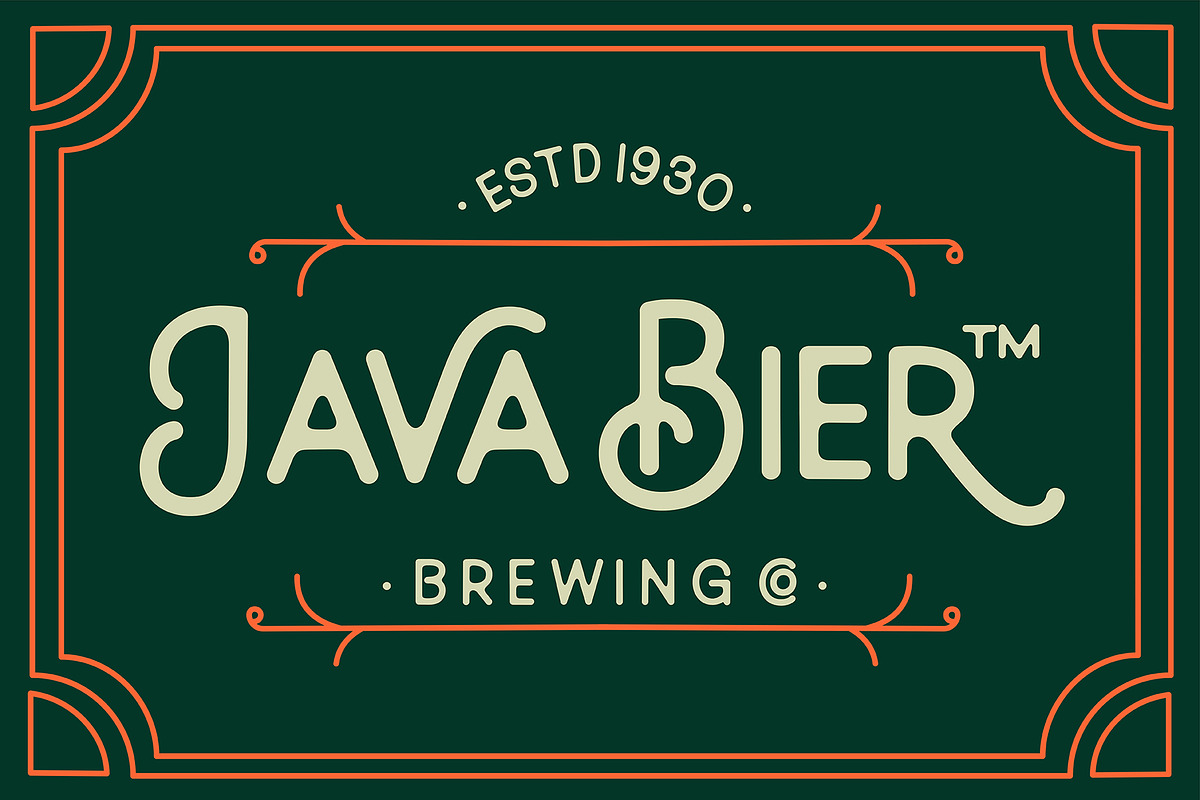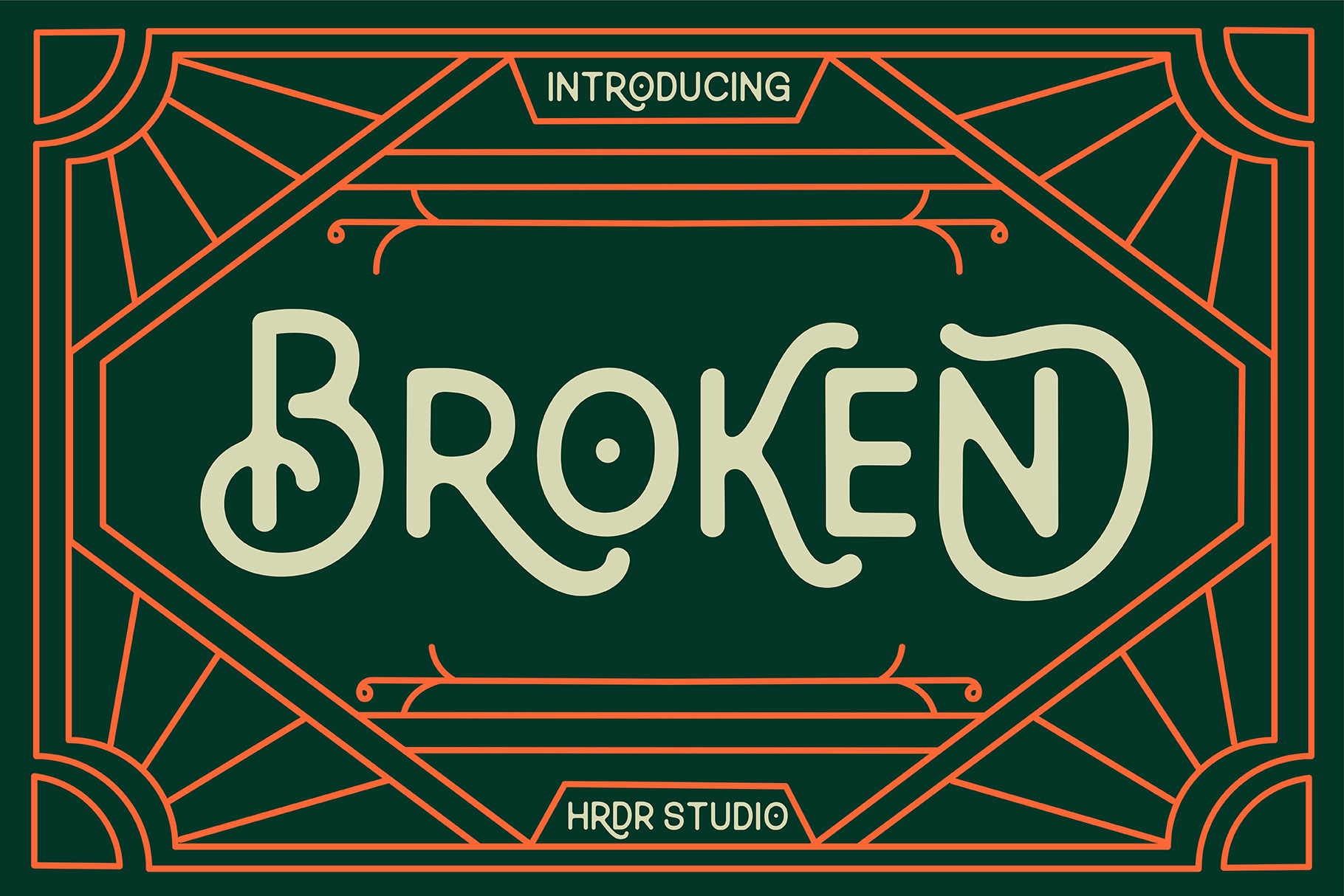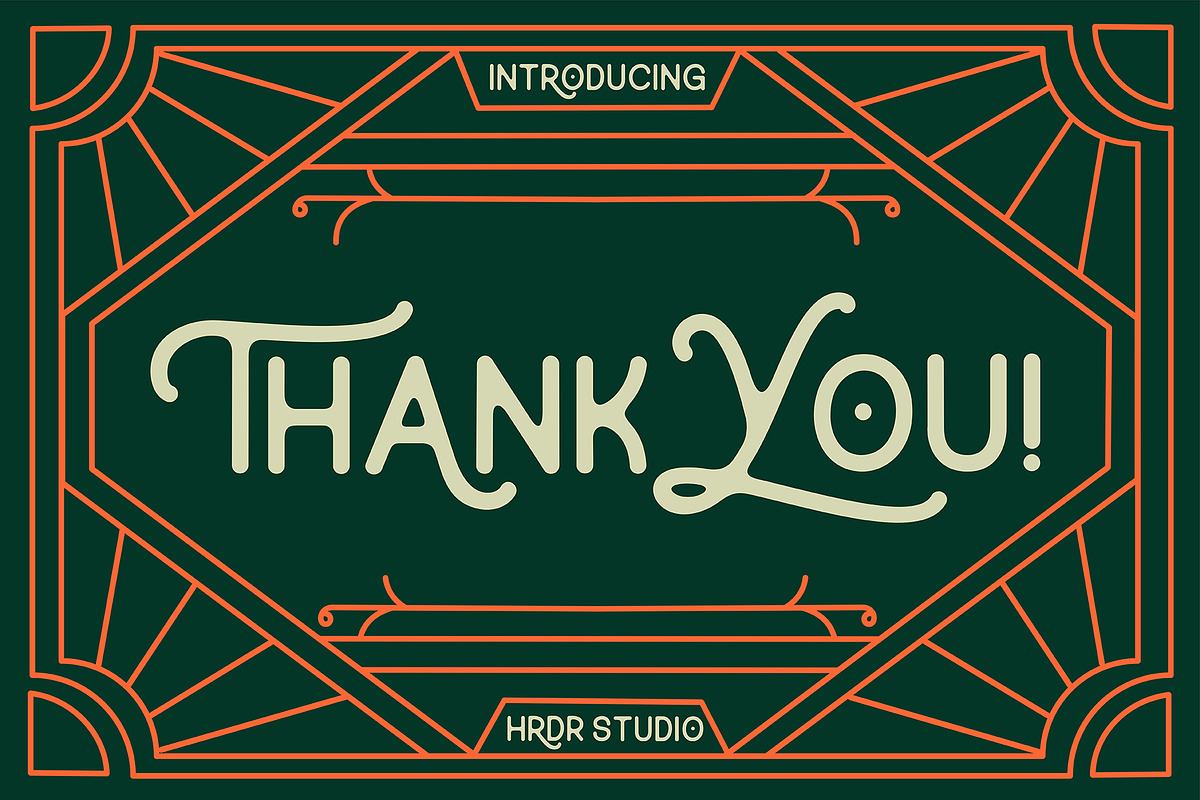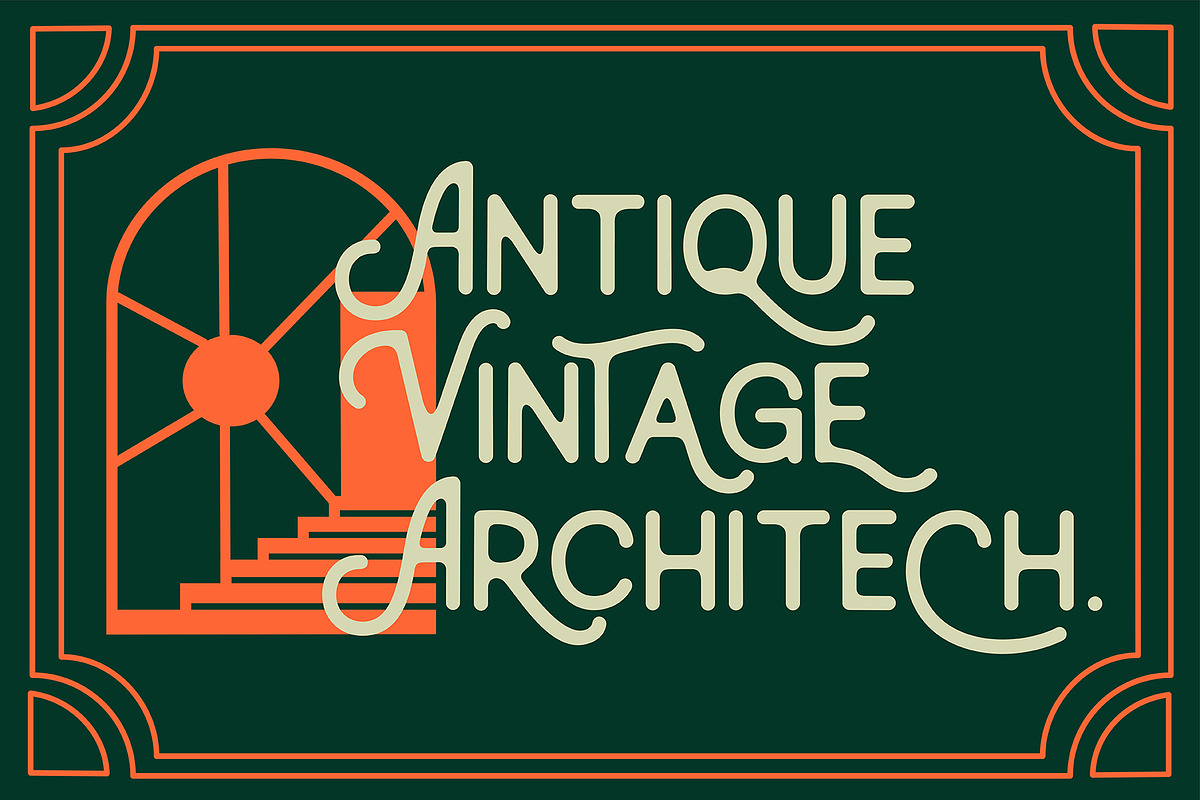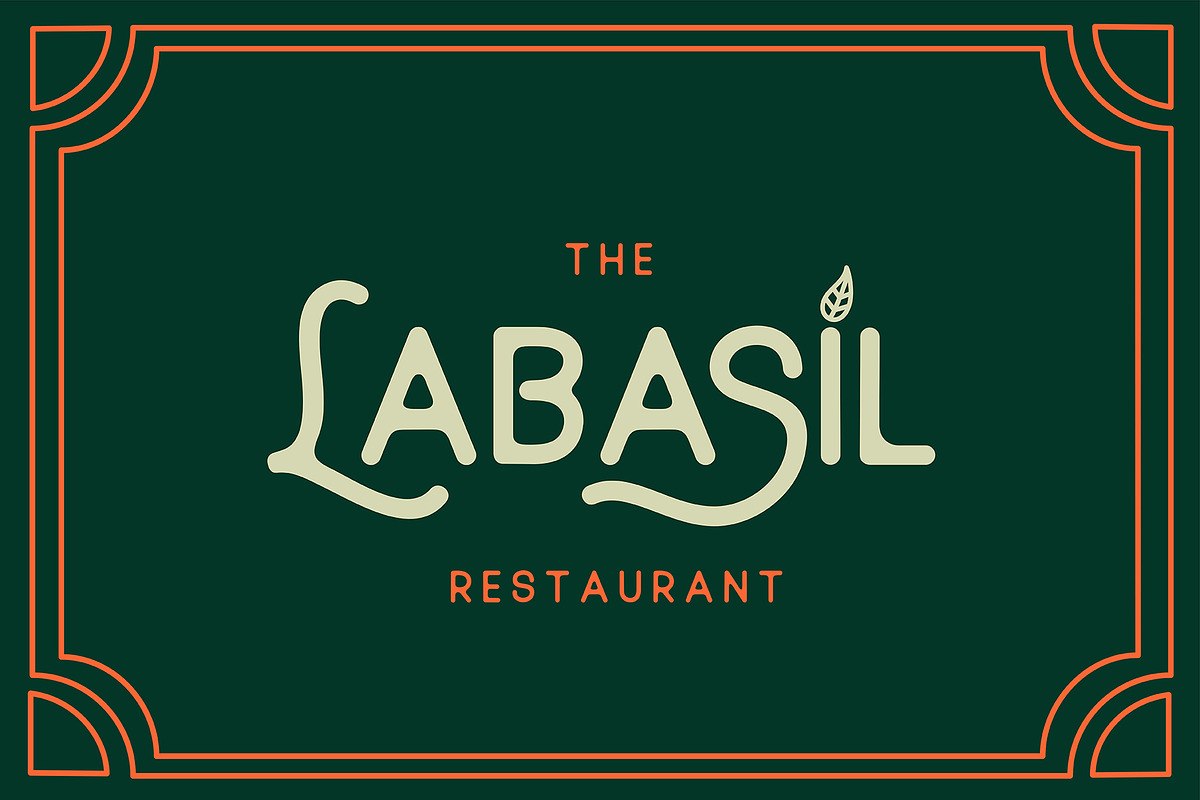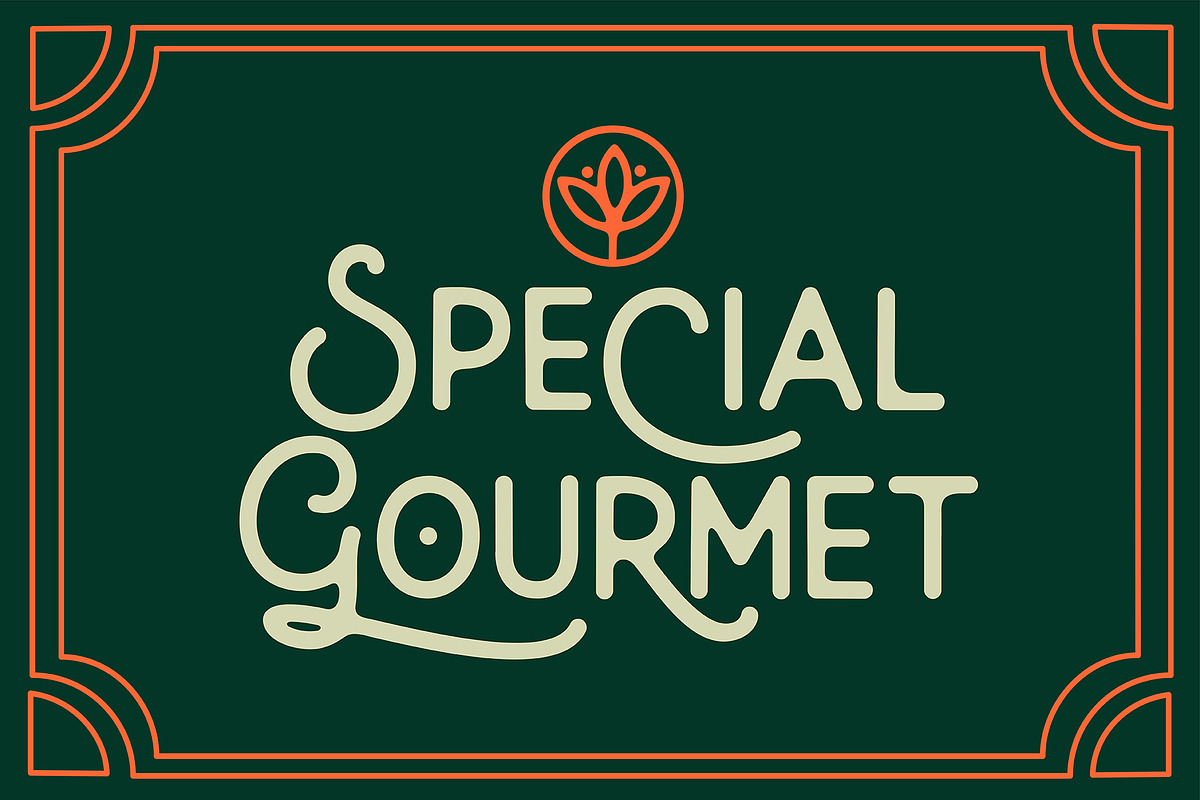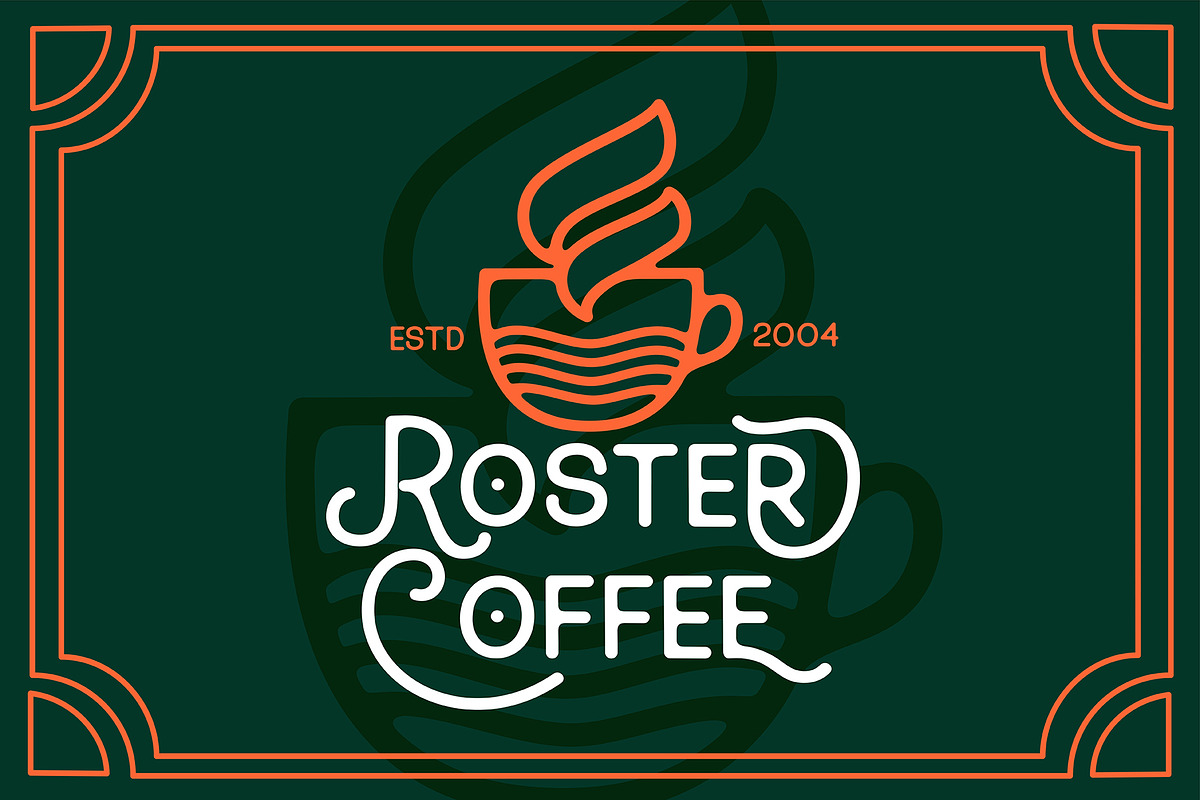
Broken - vintage handcrafted font
Broken is a vintage handcrafted font , The font have rounded edges, so this script typeface gives a feel of vintage, classic, old, handmade looked-like. the font is well crafted and was carefully added in each character. It is perfect for creating the traditional style logos, labels, clothing brand logo,Vintage design, package design, restaurant sign , Quotes and much others.
- numeric & Multilingual support
- Stylistic Alternates with Ss01, Ss02, Ss03 and Ss04